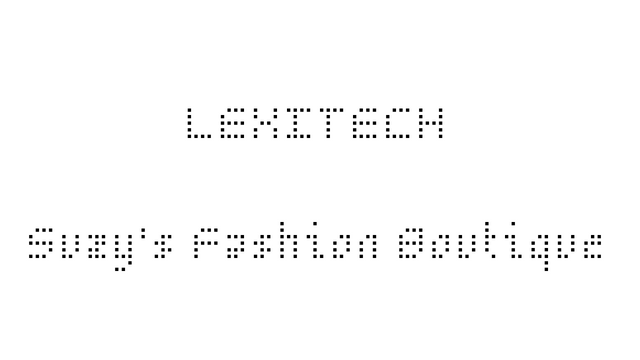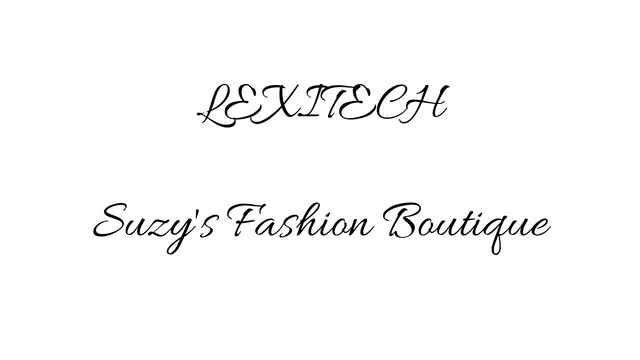
Don’t choose fonts based on style preferences
This is more a general than just a logo design rule. Try to choose fonts based on appropriateness and not based on style. The newest flashy font might look great and fit your own style preferences but that doesn’t mean it’s the best font for your next job.
Style over substance
Everyone has seen a movie that was perfectly edited, had a fantastic colour grading, and used stunning effects, but still, the movie didn’t really work. The story was lame, the dialogues boring, and the actors only amateurs. This is a clear case of style over substance.
In design it is also a mistake to prioritize style over substance. This principle becomes very clear if we think of fonts.
Here is an example of a playful and detailed font:
In the wordmark on top we’ve used the font (“Allura”) for a tech company called Lexitech. At the bottom we’ve used the same font for a Fashion Boutique in the city centre. This example shows how a nice font can work for one company and completely fail to work for another one.
Let us reverse the situation by using a futuristic font that works for Lexitech but doesn’t for the fashion boutique:
The font here is called “5Mikrodotz”. It remembers me of old machine texts and might be a great solution for a tech company. The style fits the field, looks nice as a wordmark, and is unique. But what works for Lexitech completely fails for Suzy’s Fashion Boutique.
This example might be a bit exaggerated, granted. To get the point across, I chose clear contrasts.
The bottom line is: Search for inconsistencies between style and content. Futuristic fonts work for tech companies, abstract fonts work for art galleries, and playful fonts work for small businesses.
These guidelines may differ from case to case. With time, you’ll develop an eye for that and recognize style over substance as easily as in movies.